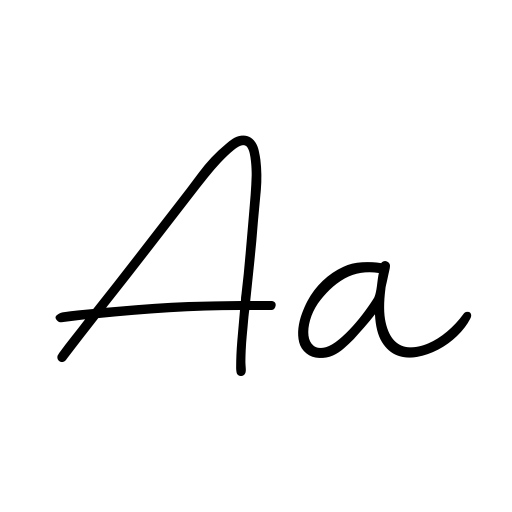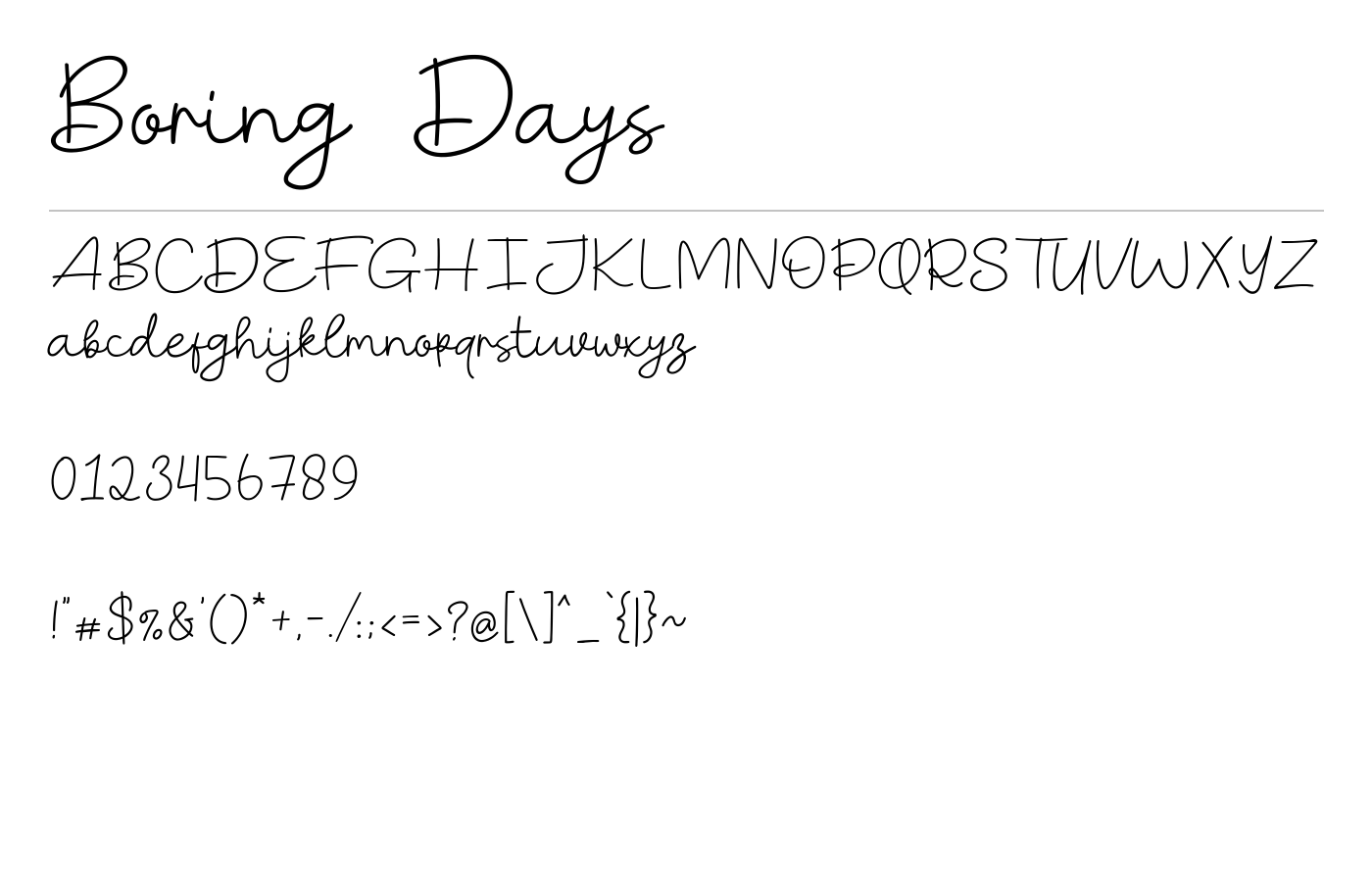
Boring Days Font is a light, playful handwritten script that brings a casual and friendly vibe to any design. Its tall, narrow letterforms with consistent thin strokes and a mix of uppercase and lowercase styles make it ideal for informal, personal branding or creative projects. This font works well in invitations, social media, and lifestyle content where a warm, approachable tone is desired.
Boring Days Font
About Boring Days Font
| Font family | Boring Days Font |